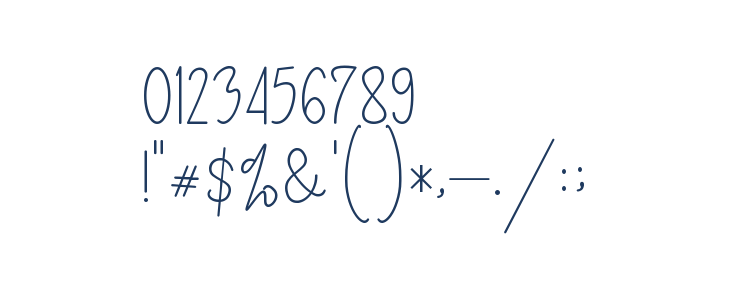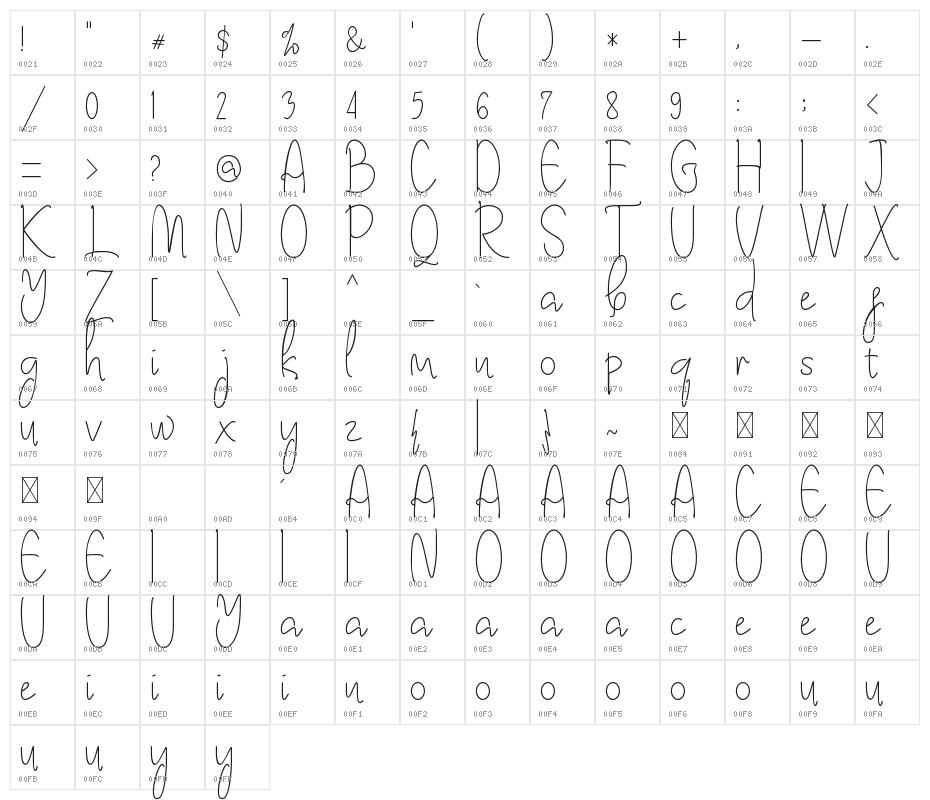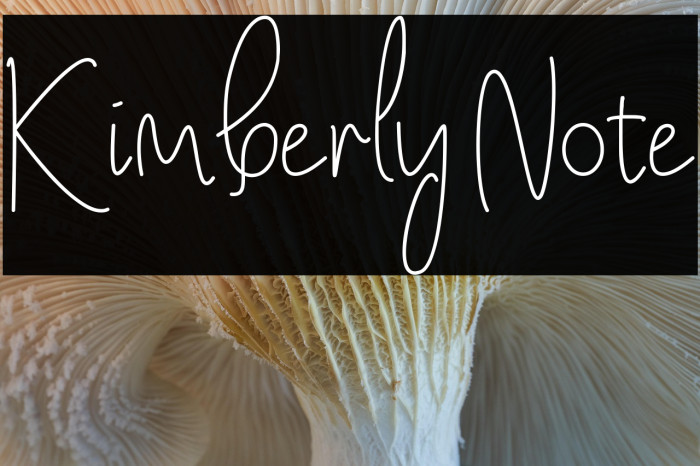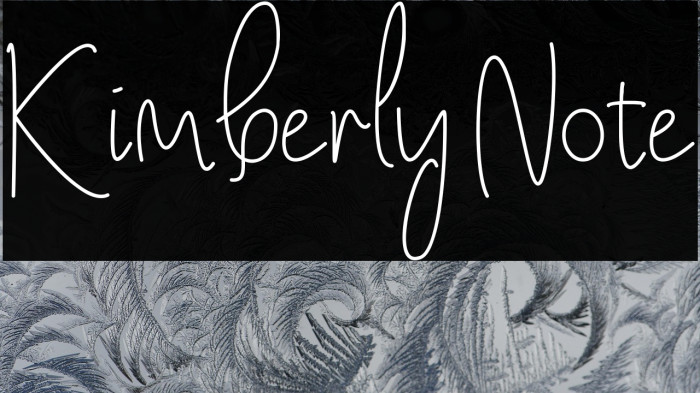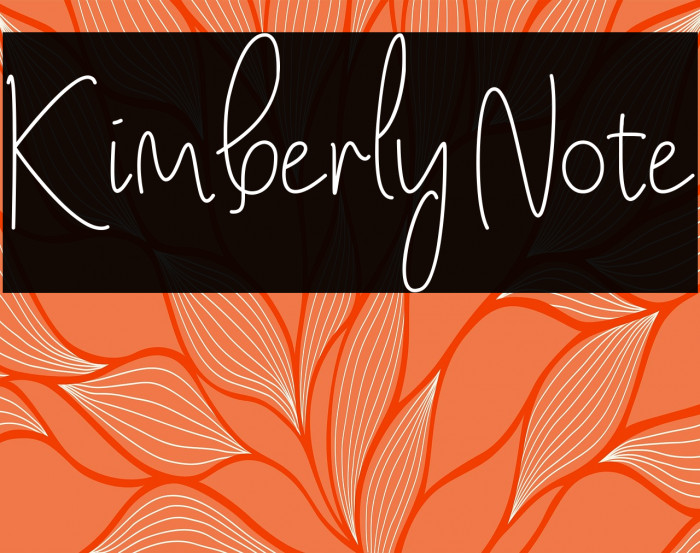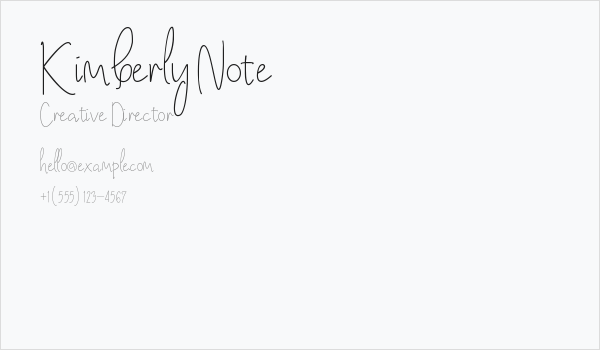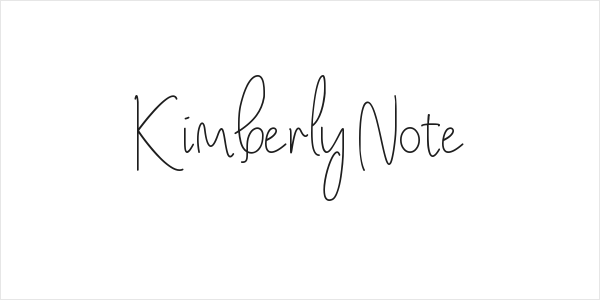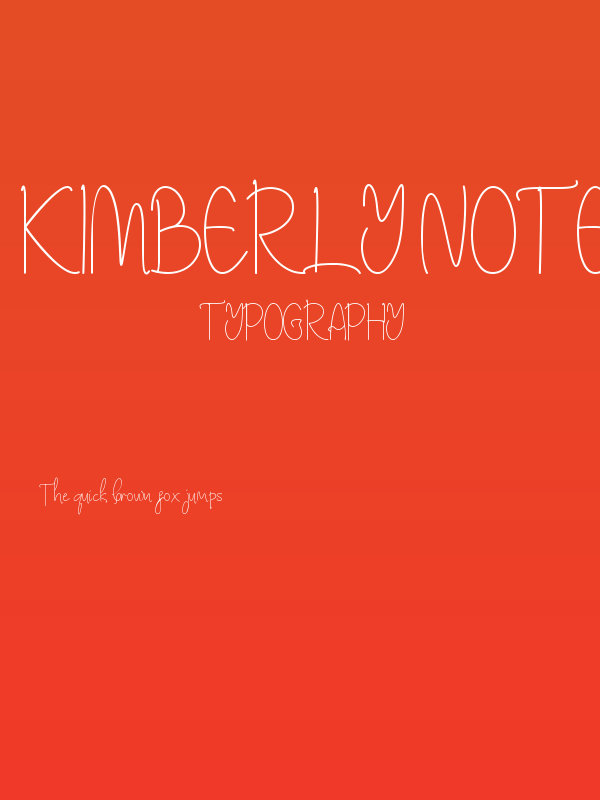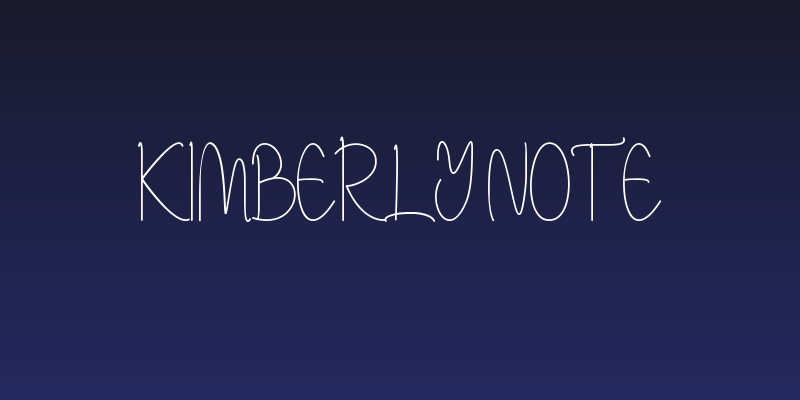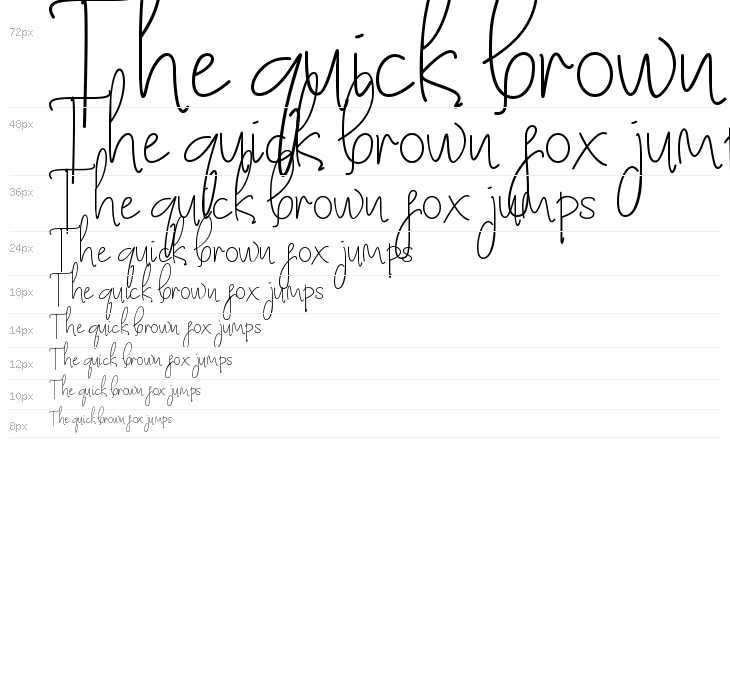
Kimberly Note Font
Kimberly Note Description
This font features a playful and whimsical handwritten style, characterized by its flowing and irregular strokes. The letters are tall and narrow, with a slight slant that adds a dynamic feel. The uppercase letters maintain a consistent height, while the lowercase letters vary in size, adding to the casual and informal appearance. The numbers are similarly styled, with a quirky touch that complements the overall aesthetic. Special characters are integrated seamlessly, maintaining the font's unique personality. This font is perfect for projects that require a personal and friendly touch, such as greeting cards, invitations, or creative branding.